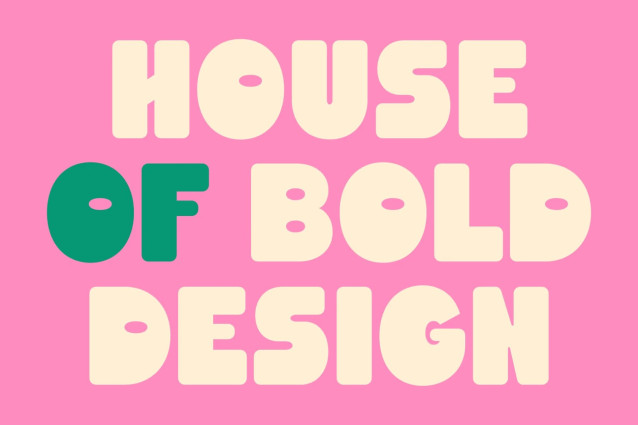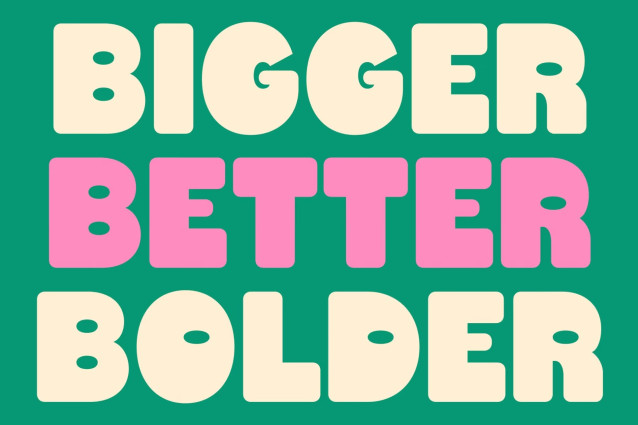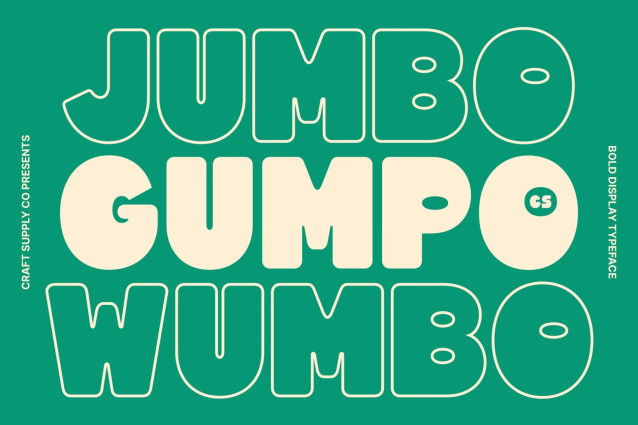
CS Gumpo – Bold Display Sans Serif Font: Where Retro Charm Meets Playful Expression
Bold Display Sans Serif Font with Friendly Character
This is a bold display sans serif font featuring playful curves, strong proportions, and a lively personality. Its confident construction ensures excellent visibility, while the rounded, expressive forms create a warm and approachable feel. The result is typography that is bold enough to command attention yet friendly enough to instantly connect with audiences.
Retro Personality with Contemporary Energy
This font brings nostalgic charm into a fresh modern context. Its cheerful letterforms evoke the optimism and creativity of vintage graphic design while maintaining the clean simplicity required for today’s branding and visual communication. This blend makes it both timeless and highly versatile.
Cheerful Typography with Strong Visual Impact
By combining bold sans serif structure with expressive curves, that creates a distinctive visual identity that feels energetic, welcoming, and memorable. Its playful personality adds character to every headline, logo, and promotional design, making typography more engaging and full of life.